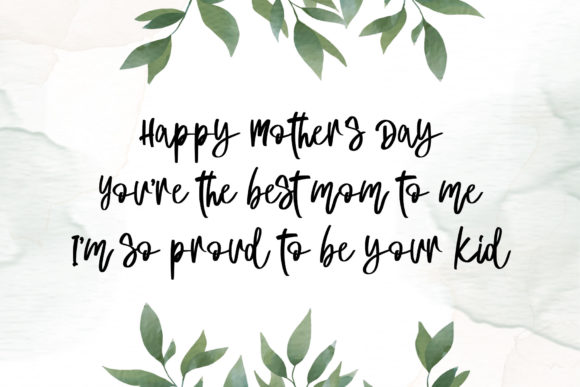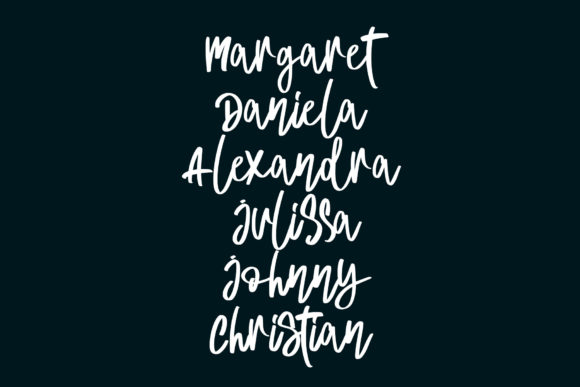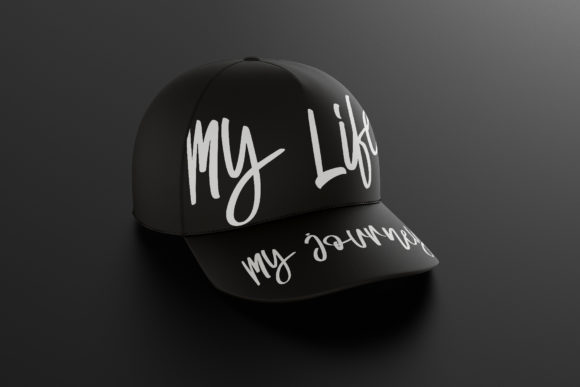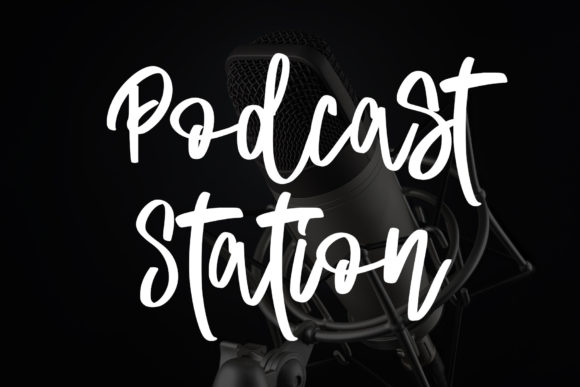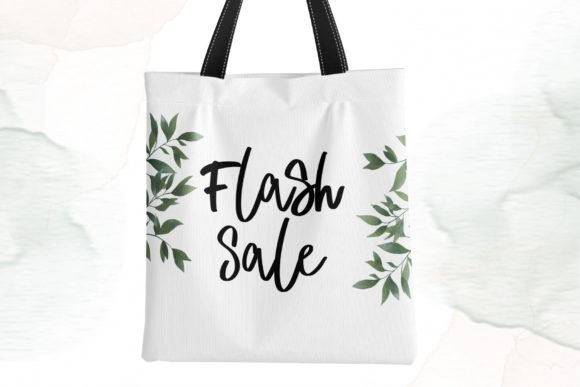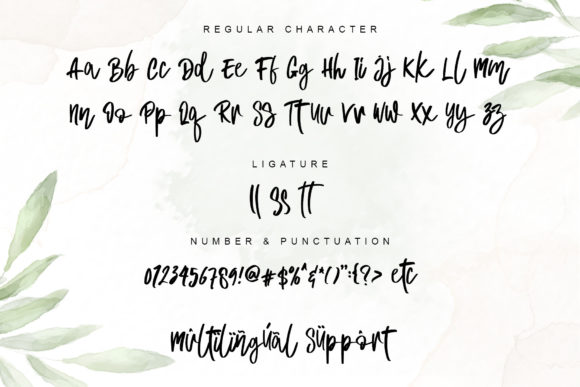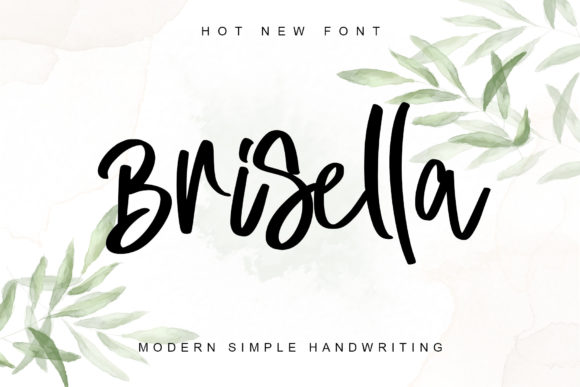
Brisella Font: Elevate Your Designs with a Simple yet Elegant Handwritten Style
Are you on the hunt for a font that embodies simplicity, modernity, and elegance? Look no further than Brisella Font, a beautiful handwritten font that offers a wide range of bold and elegant glyphs to enhance your designs. With its natural and unique style, Brisella is incredibly versatile and can be used in a multitude of design projects. Whether you’re a designer, crafter, or DIY enthusiast, this font is sure to inspire your creativity.
What Makes Brisella Font Special?
Brisella Font is a simple modern handwritten font that boasts a wonderful variety of glyphs to choose from. Its clean lines, flowing curves, and elegant strokes make it perfect for a wide range of design applications, from logos and branding to invitations, packaging, and more. The font’s natural and unique style gives it a distinctive charm that sets it apart from other fonts.
One of the standout features of Brisella Font is its incredible versatility. Its simple yet elegant design makes it suitable for a broad range of designs, from minimalist and modern to more elaborate and ornate. Whether you’re creating a sophisticated business card or a whimsical craft project, Brisella Font is sure to add a touch of elegance and sophistication.
The only limit to what you can create with Brisella Font is your imagination! This font can be used in a wide range of design projects, including:
• Logos and branding: Create a unique and memorable brand identity with Brisella Font’s elegant and sophisticated design.
• Invitations and stationery: Add a touch of elegance to your invitations, cards, and stationery with Brisella Font’s beautiful handwritten style.
• Packaging and product design: Use Brisella Font to create eye-catching packaging and product designs that stand out on store shelves.
• Crafts and DIY projects: Add a personal touch to your craft projects, such as handmade cards, gift tags, and scrapbooking pages.
Tips for Using Brisella Font
To get the most out of Brisella Font, here are a few tips to keep in mind:
• Experiment with different font sizes and styles to create visual interest and hierarchy.
• Mix and match different glyphs and ligatures to add a unique touch to your designs.
• Use Brisella Font in combination with other fonts to create a striking contrast.
• Don’t be afraid to get creative and try out new and innovative design ideas.
Brisella Font is a beautiful and versatile handwritten font that offers a simple yet elegant design perfect for a wide range of design projects. With its PUA encoding and extensive library of glyphs, you can unlock endless design possibilities and take your creativity to the next level. Whether you’re a designer, crafter, or DIY enthusiast, Brisella Font is sure to inspire your next project.